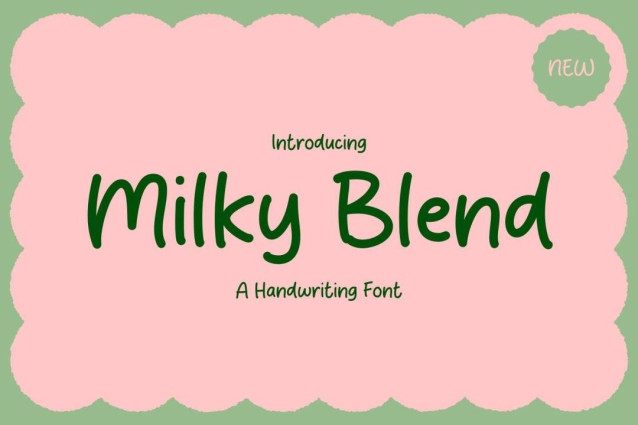
Milky Blend Font
Milky Blend Font is a simple and friendly handwritten font. Its natural and unique style makes it incredibly fitting to a large pool of designs. The only limit is your imagination!